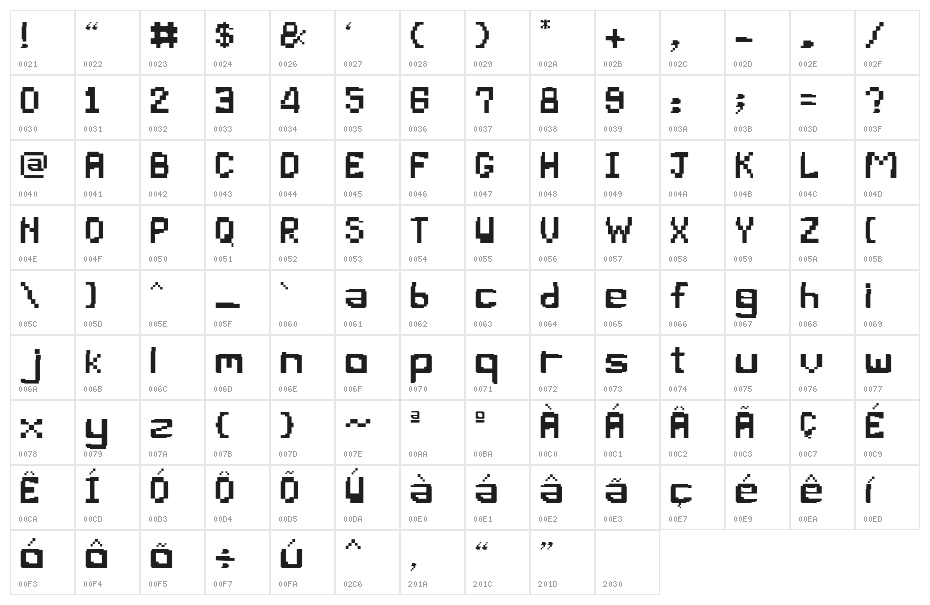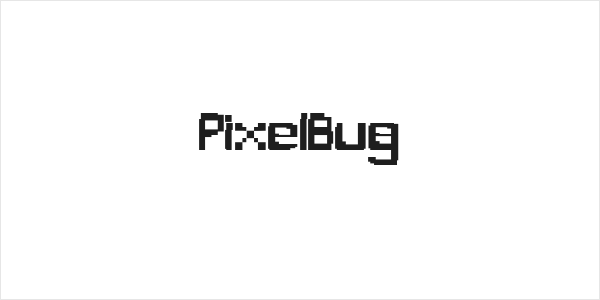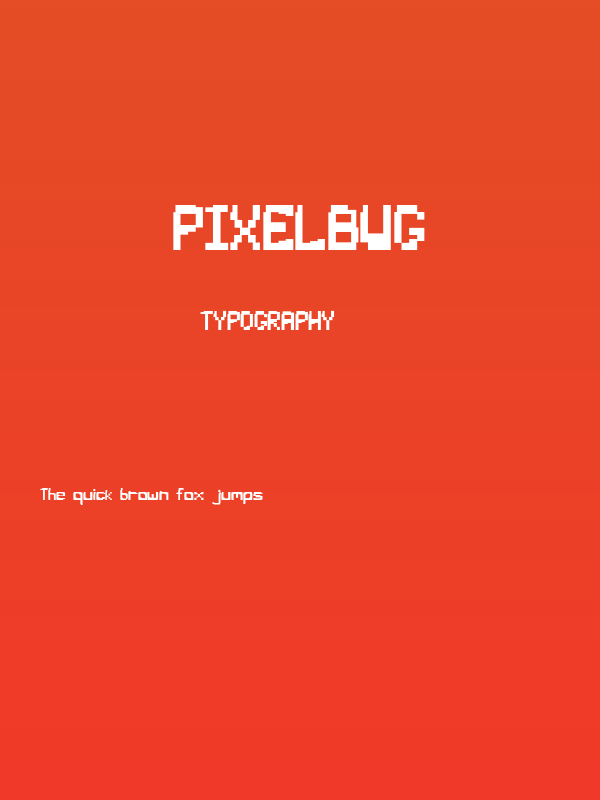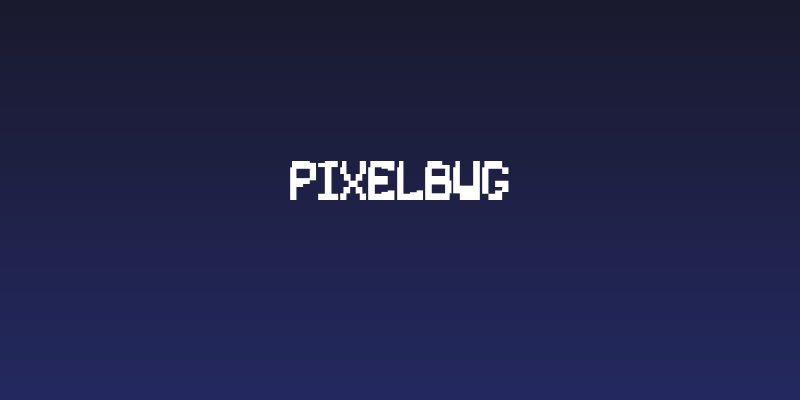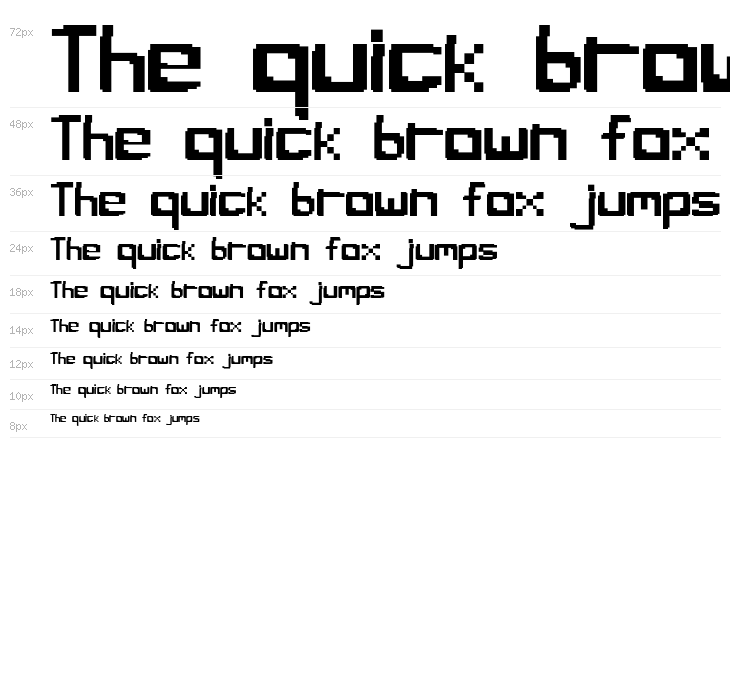
PixelBug Font
PixelBug Description
This font features a pixelated, blocky design reminiscent of early digital displays and retro video games. Each character is constructed with a grid-like structure, giving it a distinct, nostalgic appearance. The uppercase and lowercase letters maintain a consistent height, with sharp edges and uniform line thickness. Numbers and special characters follow the same pixelated style, ensuring a cohesive look across all glyphs. The overall aesthetic is bold and eye-catching, making it suitable for projects that require a vintage or tech-inspired theme.
Overall StyleVintage
Proposed ProjectsIdeal for video game design, retro-themed posters, digital art, and tech-related branding.